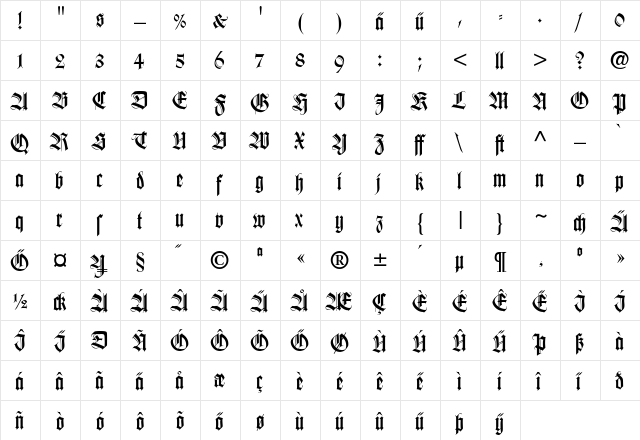
WilhelmKlingsporGotisch-Dfr Regular
Design Context for WilhelmKlingsporGotisch-Dfr Typeface
WilhelmKlingsporGotisch-Dfr is a composed and adaptable typeface that performs quietly and consistently across a wide range of design contexts.